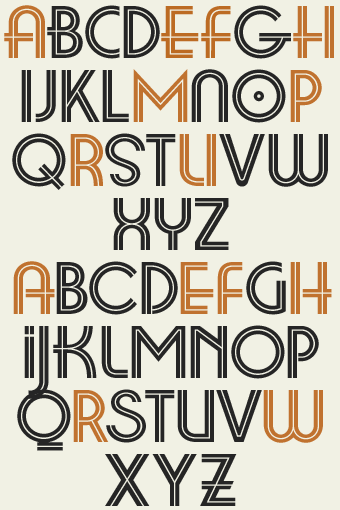
Originally inspired by a sign painter's Art Deco style, LHF Metro 39 is perfect for designs requiring a period feel. The Inline version is reminiscent of letter styles that were used during the 1970's Art Deco revival period. Set includes 4 fonts : Inline, Inline Alternates, Regular, and Regular Alternates for a total of 56 different letters plus 16 bonus alternates. You might also like: American Sans & Gloria.